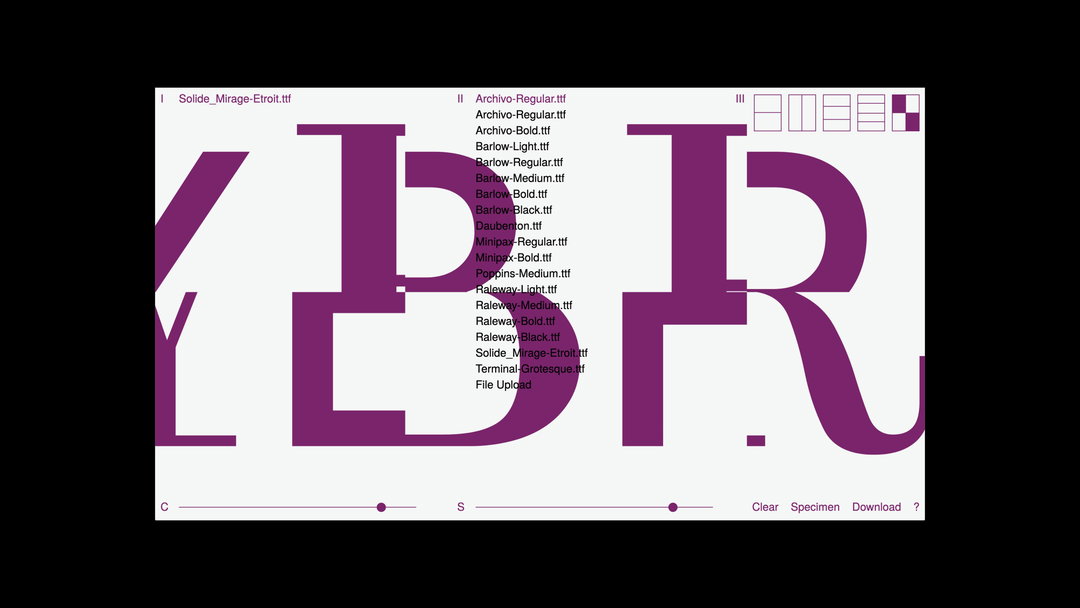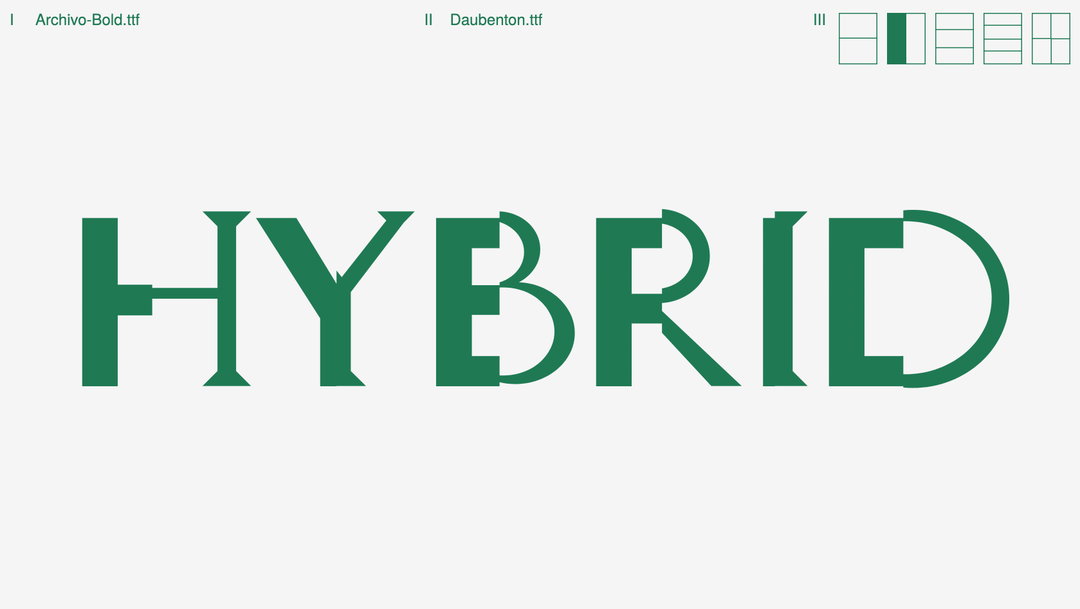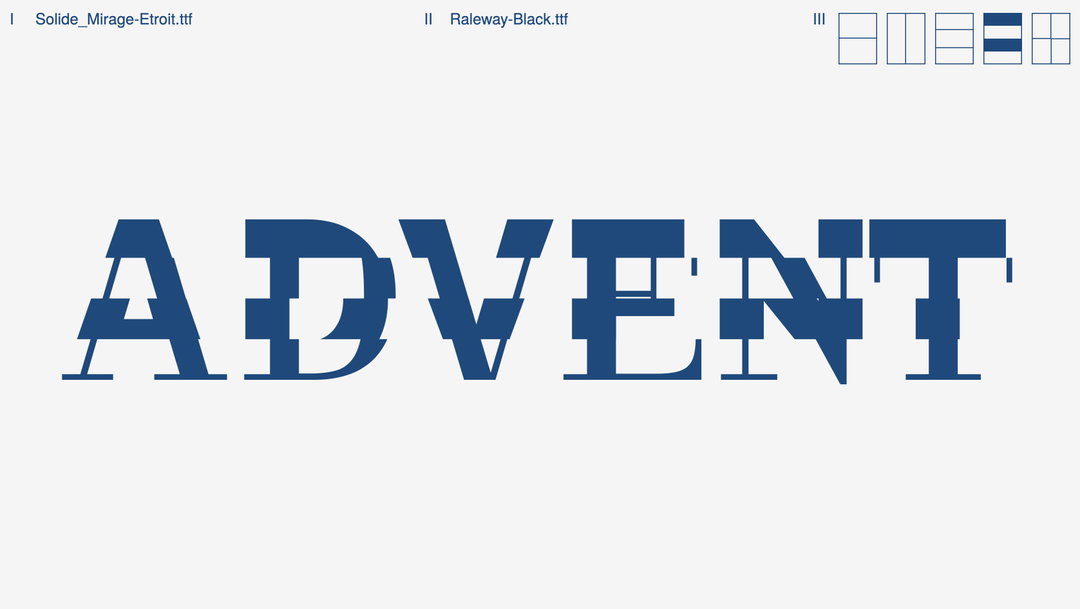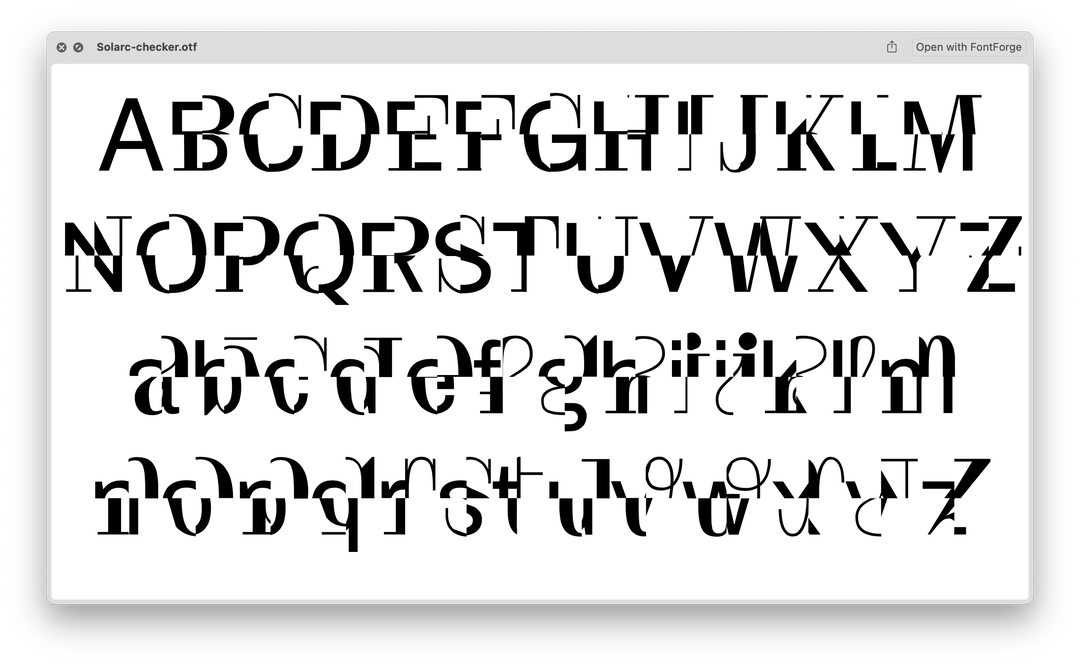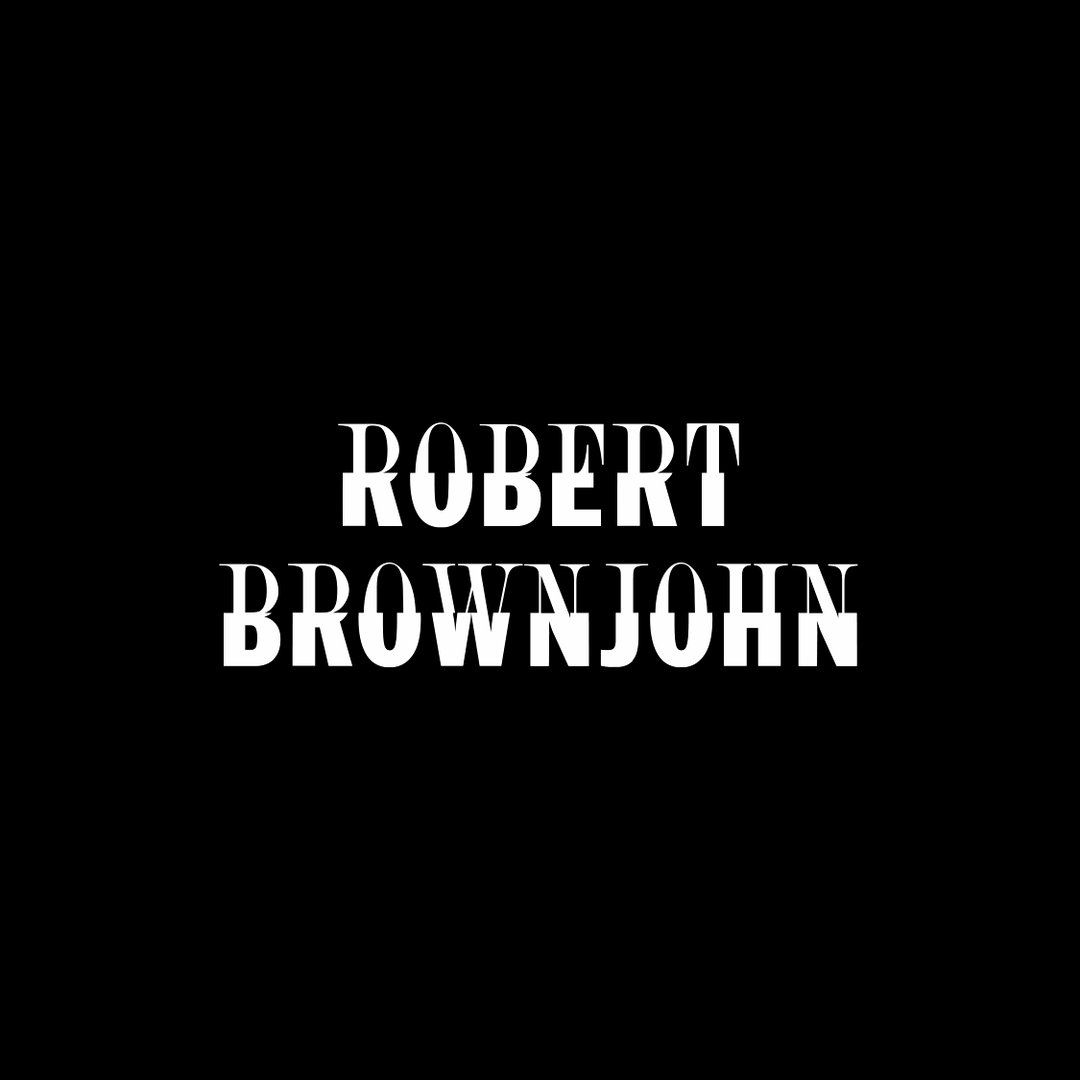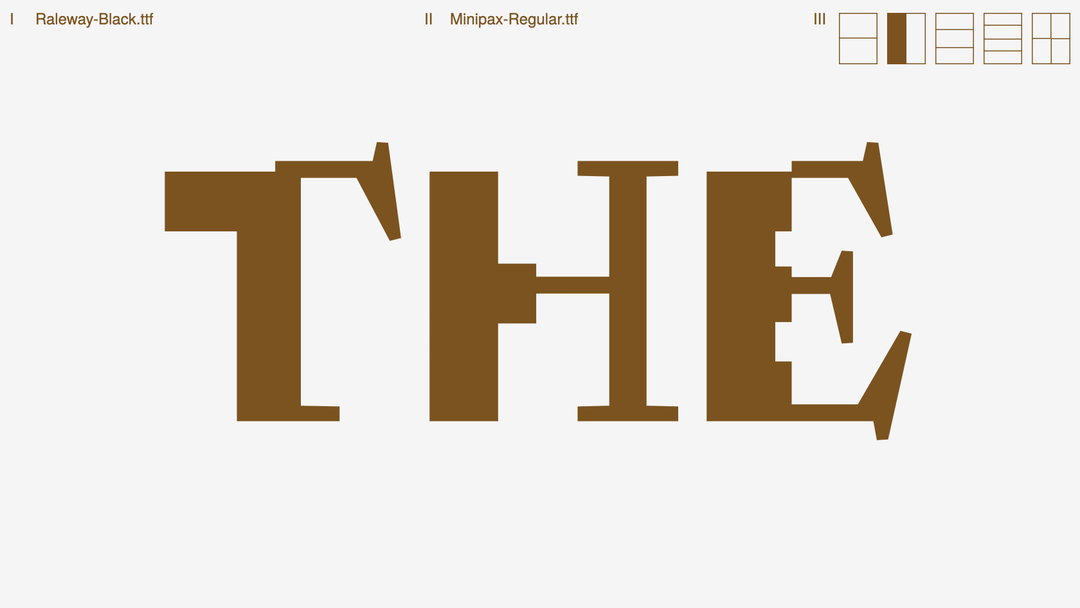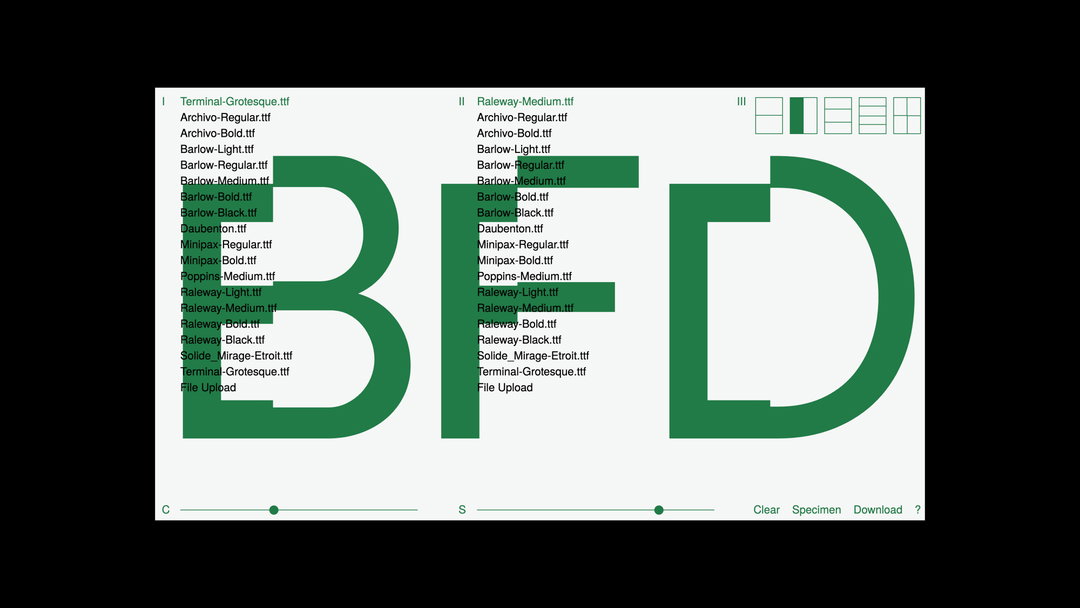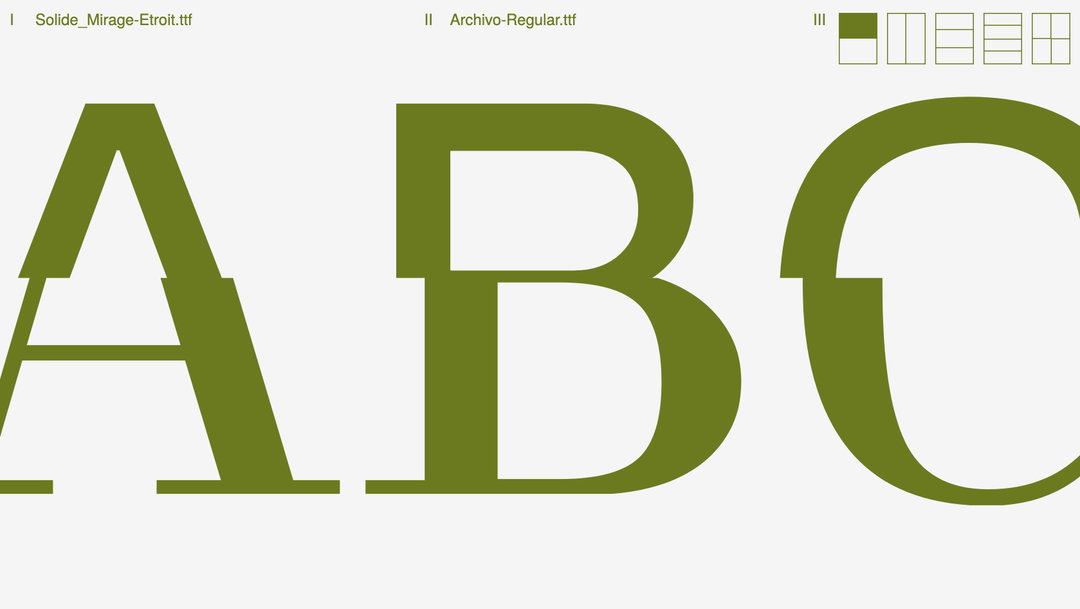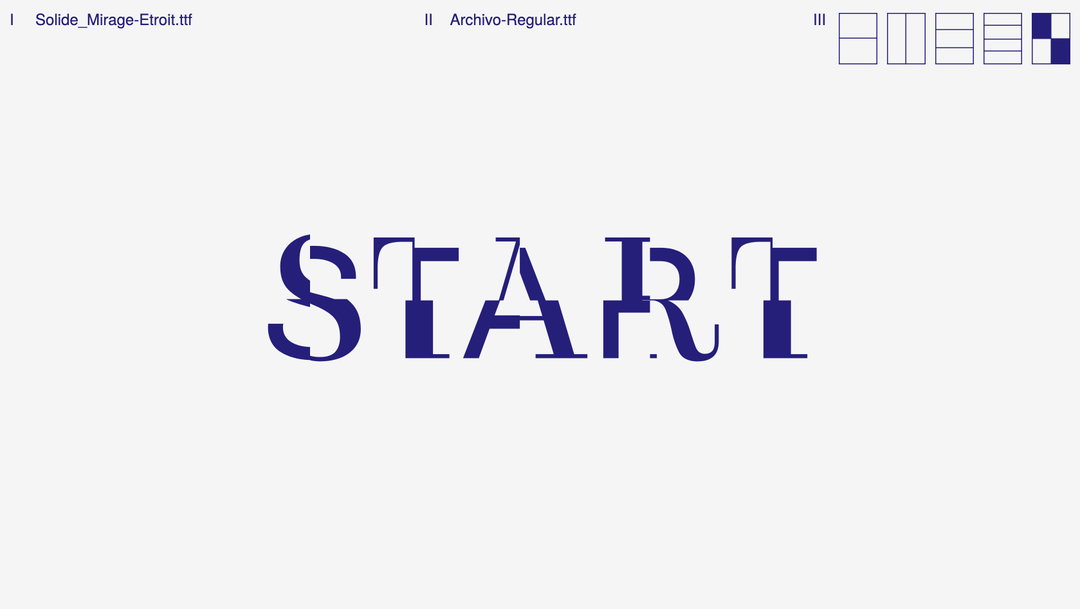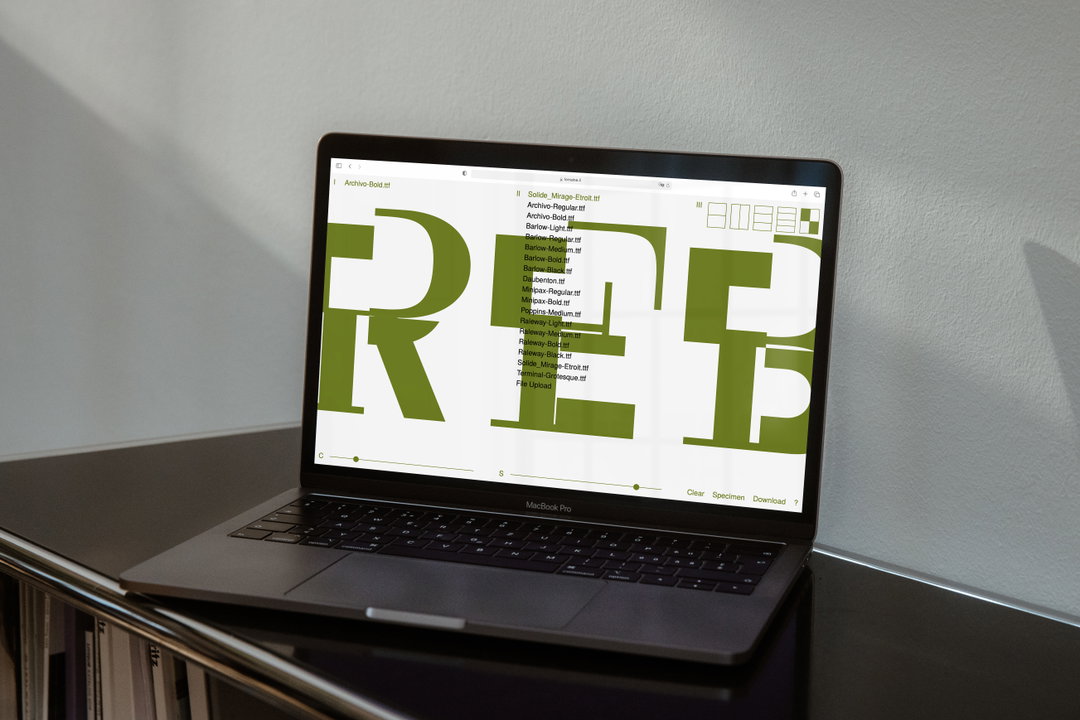
When creative code meets type: Lorraine Li’s Font-Remix tool shows the potential of tech innovation
The tool, which lets you conjoin two separate fonts, shows the ways in which technology can diversify and expand the type design library.
Today, typography appears to be the one area in which designers seem keen to get most inventive and experimental, challenging the boundaries of legibility and form. With the ever-expanding capabilities of technology, it’s no surprise that novel techniques in the online sphere are beginning to take these practices even further. Lorraine Li’s Font-Remix project is a brilliant example of this technical innovation in type design.
Primarily, Font-remix provides methods for arranging letterforms in browsers by performing boolean operations, a form of statistical function. Lorraine explains: “New fonts are generated at runtime from the vector paths of two existing fonts, and can be downloaded as an opentype file. Users can then customise their result by selecting two fonts from the dropdown or uploading from their computer, and choosing from different grids for combining the letterforms from the two fonts.” The resulting fonts show the beauty in collision and contrast, with two font’s artfully conjoined to create an entirely new set of glyphs.
Lorraine’s interests in experimentation with coding came before design. “I was never good with verbal communication, so I was fascinated by the idea that communication can happen visually, in a less linear manner,” she details. “Essentially because I get to structure the architecture of communication, what someone might need to know first.” It was this musing that pushed Lorraine to study at Rhode Island School of Design (RISD), where she started to explore “the possibilities that programming can bring to graphic design expressions”.
The ideas and topics that led to the Font-remix project were born from the findings of Lorraine’s explorations. “I was feeling that programming has been simultaneously mystified and under utilised in graphic design, perhaps with some causality between the two,” she says. “The fear of code has turned a lot of people away from digging deeper into what could be possible.” This pushed Lorraine to expand a web-based tool for ease of sharing and accessibility, and to create a cohesive portal that prevents the user from having to write a line of code. “I wanted to introduce the idea that the output can be a collaboration between me and the user; this could be an alternative mode to how designers interact with creative code,” Lorraine explains.
It was when digging even further into type design at RISD – and finding herself continually drawing anchor points in RoboFont – that Lorraine was reminded of the fact that manipulating data often leads to changes in the letterform. “Font editing softwares taught us one way of interacting with this data," she says, "but are there other options?” While making the final piece, perhaps one of the most important aspects to Lorraine was the “output”, as well as working out how to feed manipulated data back into a downloadable and useable font file with the correct metadata. “I wanted this project to fit comfortably in the graphic design world and act as proof that creative coding projects don't have to be elusive or impractical,” Lorraine says.
Despite still being in its early stages, the Font-Remix tool has been used in a number of projects. One of its outputs arose after Lorraine first shared the project online, after which she was contacted by Jonathan Maghen from Primary Foundry. Showing Lorraine a 1959 Grishman-Ryce Duo cover designed by Robert Brownjohn, the foundry hoped to use Font-Remix to create a font inspired by it. “Using Font-Remix as a production tool was a usage that I didn’t necessarily expect, which made it exciting to me,” Lorraine says. The font – which perfectly demonstrates the tool's ability to successfully fuse the classic and the contemporary – is now available on through Primary Foundry.
Initially, the Font-Remix project began simply as a form of research, ready to be built upon. But, having already been utilised in a number of projects, it's received positive feedback from other designer-coders. The tool has already proved its functionality and the exciting possibilities it allows for. Now, Lorraine has set herself on further exploring the potential for alternative designs tools, carving them a new role within the ever-more digitally focused design world. “As much as every graphic form has been created before, I do take pleasure in attempting to create things that feel new,” the designer concludes.
Lorraine Li: Arcdau-vHalfFold-Specimen. Archivo Bold mixed with Daubenton in the Vertical Half Fold configuration (Arcdau-vHalfFold) (Copyright © Lorraine Li, 2022)
Lorraine Li: Solarc-vHalfFold-Specimen. Solide Mirage Etroit mixed with Archivo Regular in the Vertical Half Fold configuration (Solarc-vHalfFold) (Copyright © Lorraine Li, 2022)
Lorraine Li: In Use (Copyright © Lorraine Li, 2022)
Lorraine Li: Robert Brownjohn (Copyright © Lorraine Li, Johnathan Meghen, 2022)
Lorraine Li: Ralmin-vHalfFold-Specimen. Raleway Black mixed with Minipax Regular in the Vertical Half Fold configuration (Ralmin-vHalfFold) (Copyright © Lorraine Li, 2022)
Lorraine Li: Interface (Copyright © Lorraine Li, 2022)
Lorraine Li: Solarc-hHalfFold-Specimen. Solide Mirage Etroit mixed with Archivo Regular in the Horizontal Half Fold configuration (Solarc-hHalfFold) (Copyright © Lorraine Li, 2022)
Lorraine Li: Solarc-checker-Specimen (Copyright © Lorraine Li, 2022)
Lorraine Li: Mockup (Copyright © Lorraine Li, 2022)
Lorraine Li: Interface (Copyright © Lorraine Li, 2022)